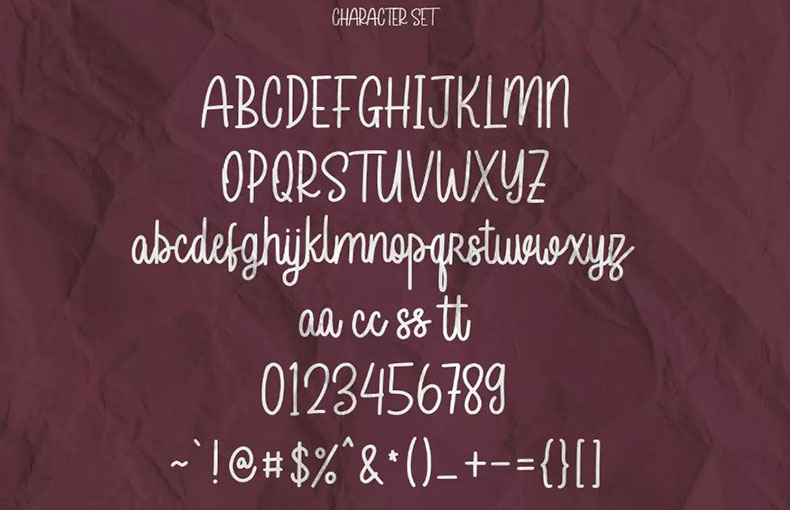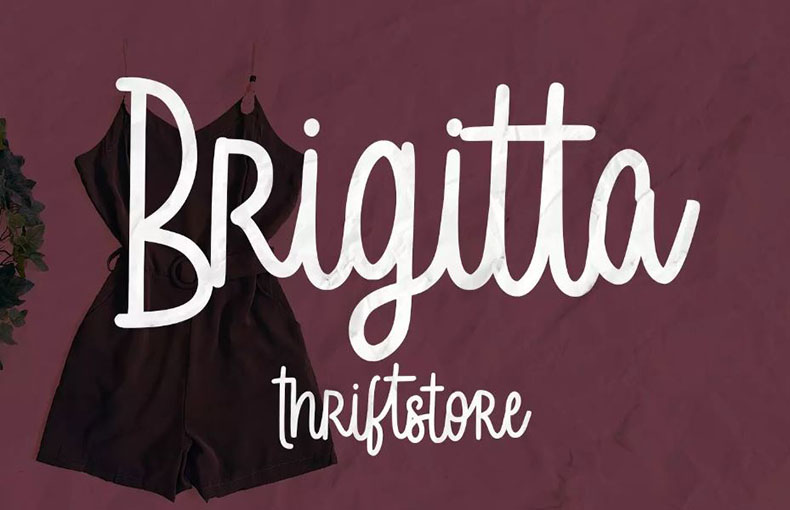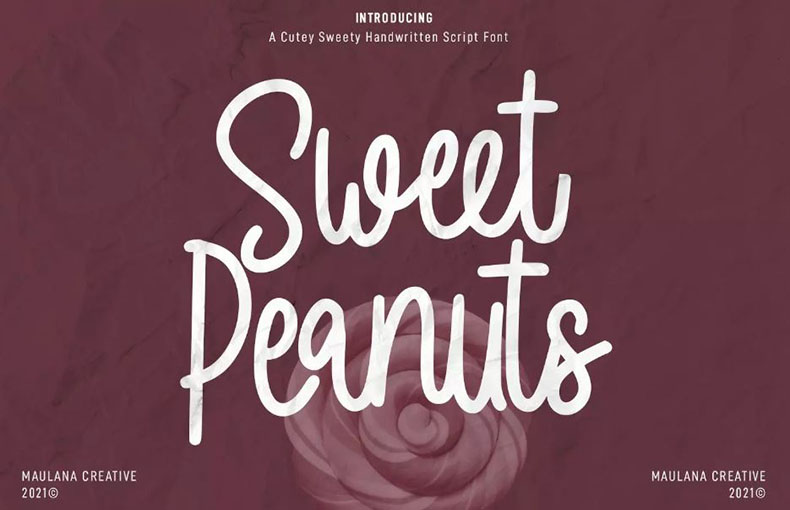
Sweet Peanuts Font is an elegant sweety handwritten script typeface that comes with flowing strokes and whimsical characters. It was designed by Gilang Maulana and published by Maulana Creative.
With a regular clean stroke, fun character with some of the ligatures. To give you extra creative work. Try it out for Social media, Movie Titles, Books Titles, a short text, and more.
This font designer has crafted it with a well-balanced and delicate style that exudes elegance and class. It also supports multilingual more than 100+ languages.
This beautiful typeface can be used to create logos for various businesses, as well as for naming, thumbnail, and image design purposes. This typeface is also useful for designing stationery, murals, HD photographs, social media posts, children’s books, social media graphics, and even professional presentations.
FAQs about Sweet Peanuts Font:
What is Sweet Peanuts Font?
Sweet Peanuts Font is an elegant sweety handwritten script typeface that comes with flowing strokes and whimsical characters. It was designed by Gilang Maulana and published by Maulana Creative.
Who dеsignеd Sweet Peanuts Font?
Sweet Peanuts Font was dеsignеd by Gilang Maulana and published by Maulana Creative.